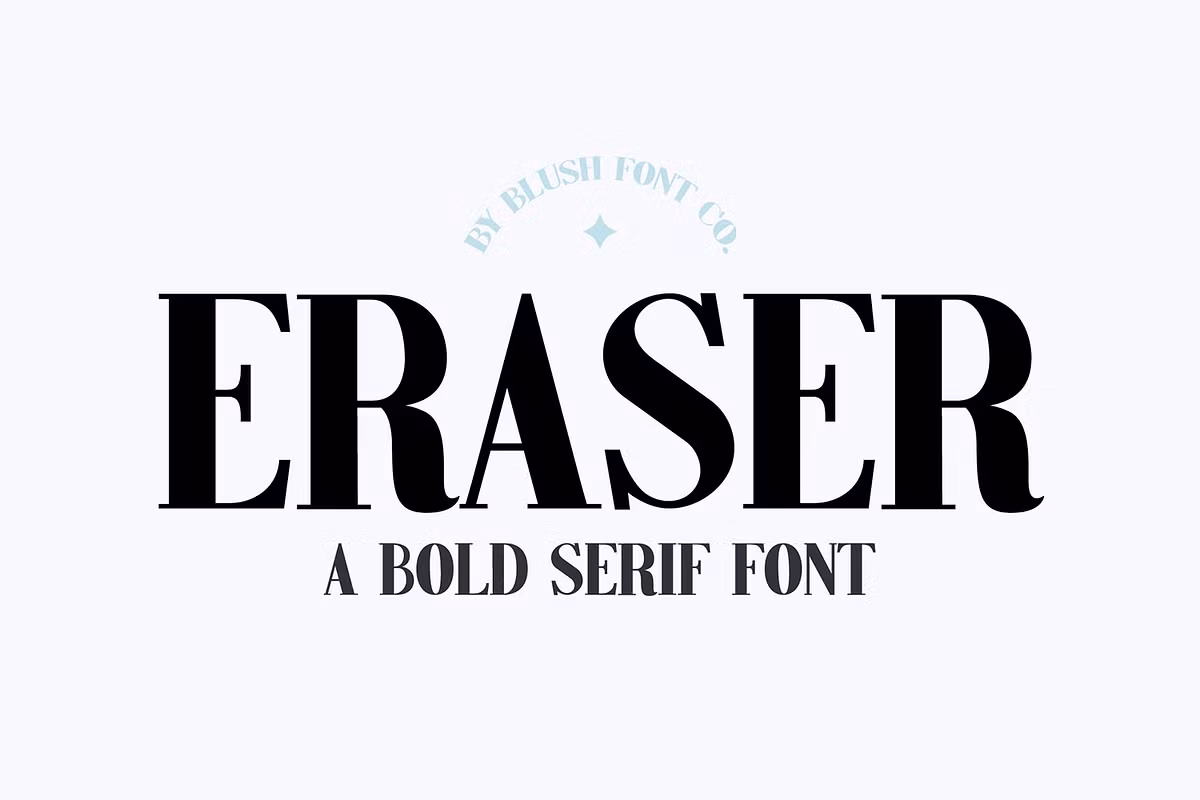
ERASER Modern Bold Serif Font Free Download
ERASER Modern Bold Serif Font Free Download is a striking typeface that combines the strength of bold serifs with sleek, modern styling. Designed for impactful headlines, branding, editorial layouts, posters, and fashion-forward graphics, this font delivers presence and sophistication in every letter. Its sharp serifs and confident structure make it perfect for designers looking to make a bold, stylish statement.
Whether you're crafting a luxury logo, a high-contrast magazine cover, or eye-catching product packaging, ERASER Modern Bold Serif Font Free Download offers the versatility and elegance to elevate your design. It blends traditional serif charm with a fresh, edgy twist—ideal for both classic and contemporary projects.